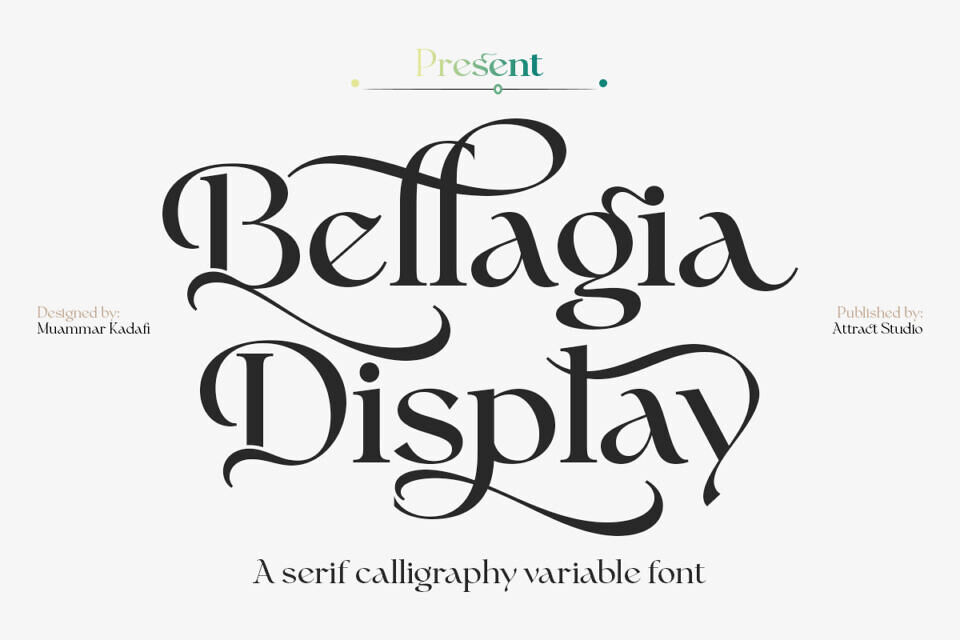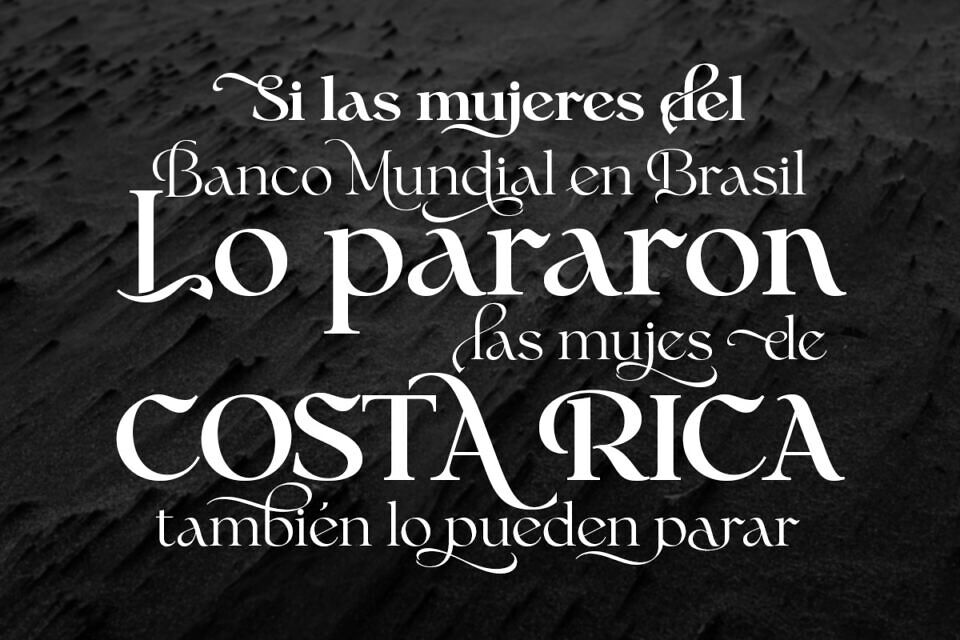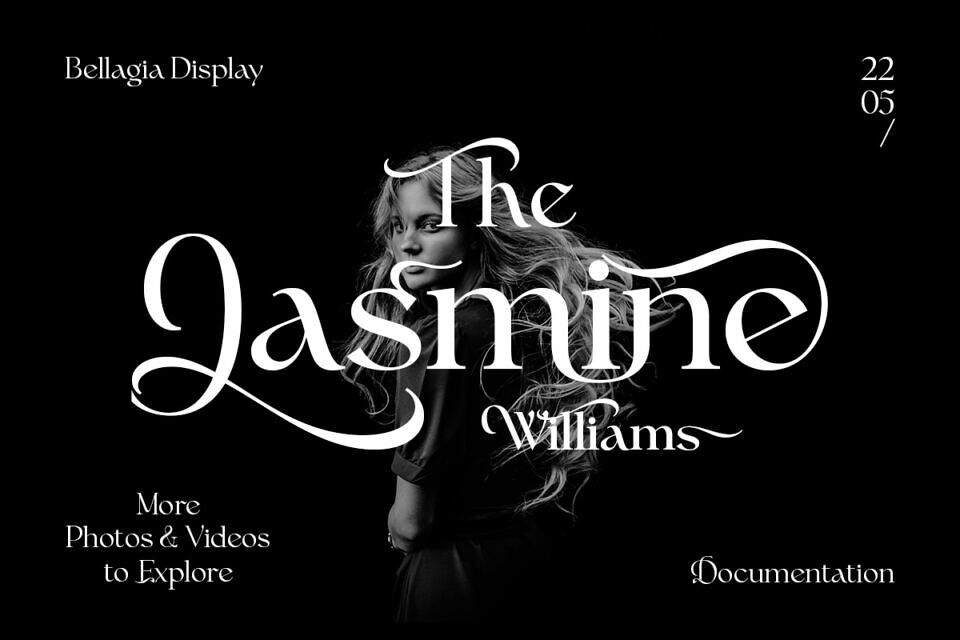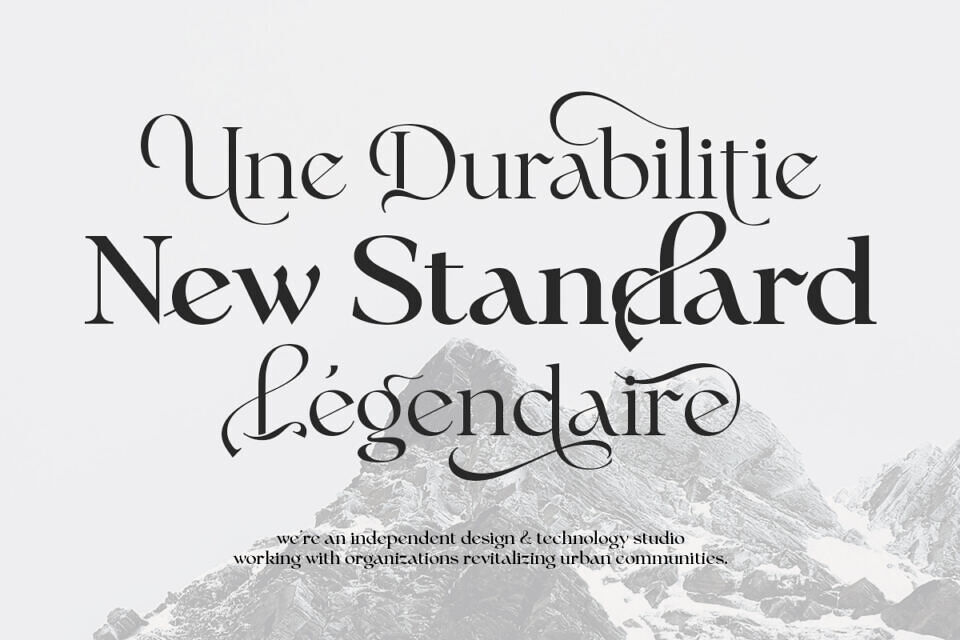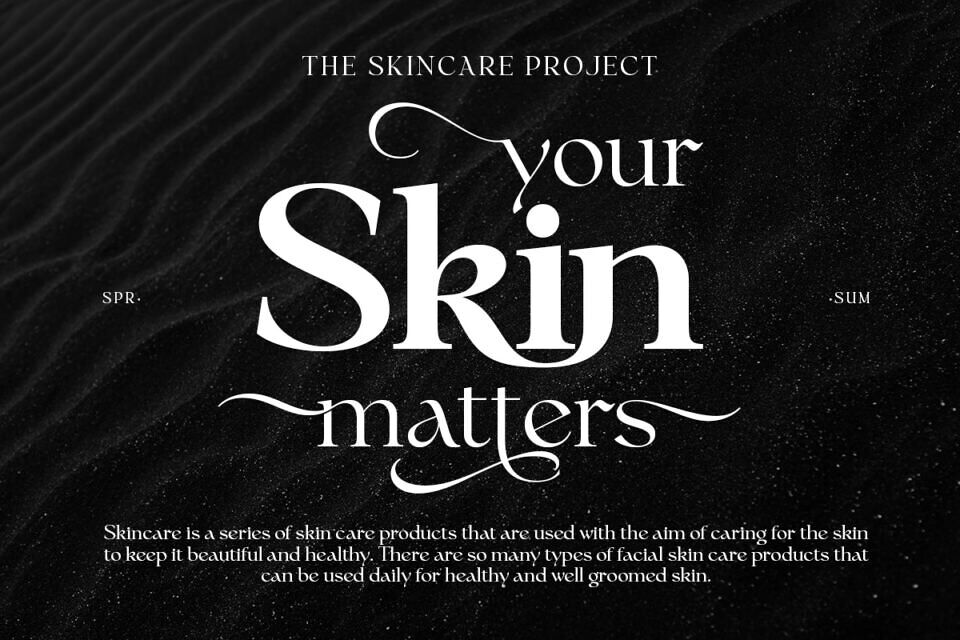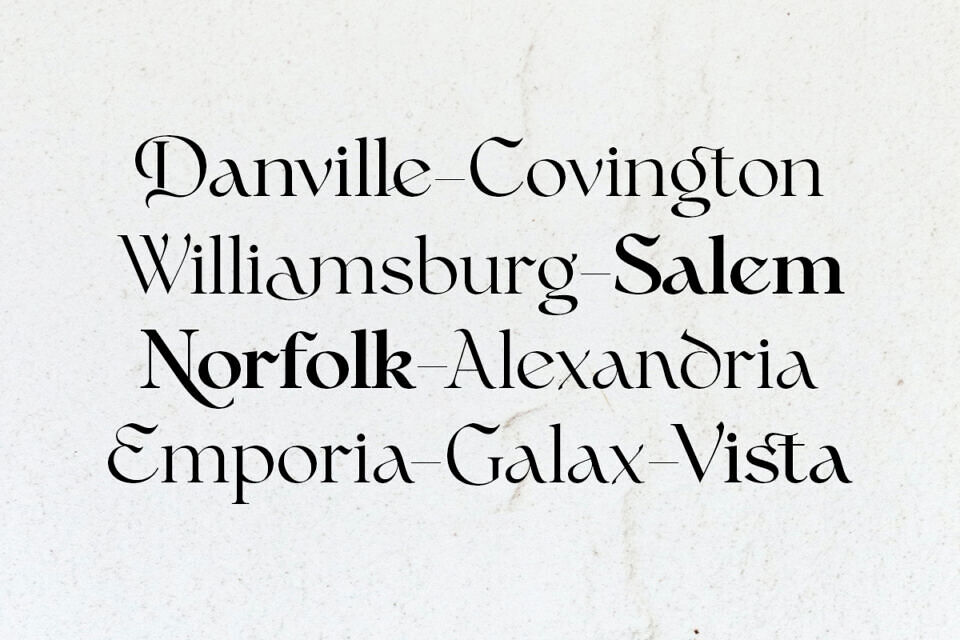
Bellagia Font
Bellagia Display is a blend of two calligraphy typefaces and vintage serifs with a natural bond. Fall in love with it and bring your projects to the highest levels! This font is PUA encoded which means you can access all of the amazing glyphs and ligatures with ease!